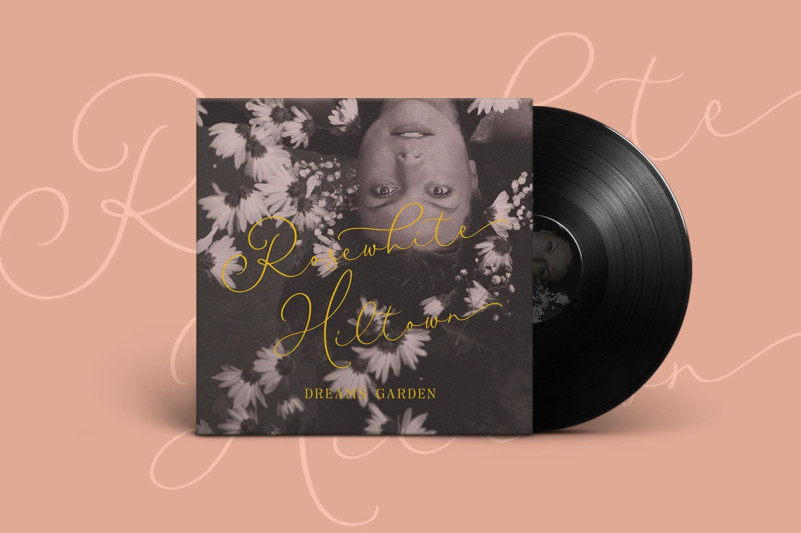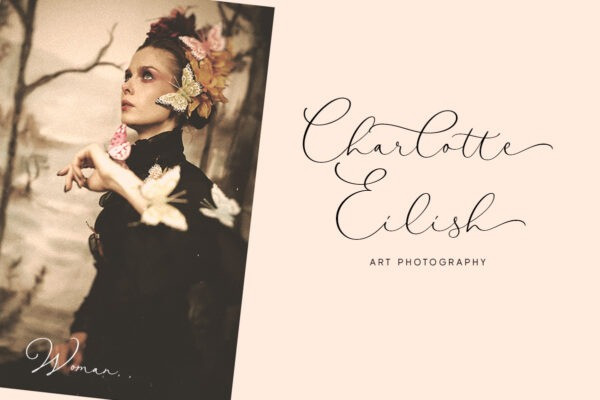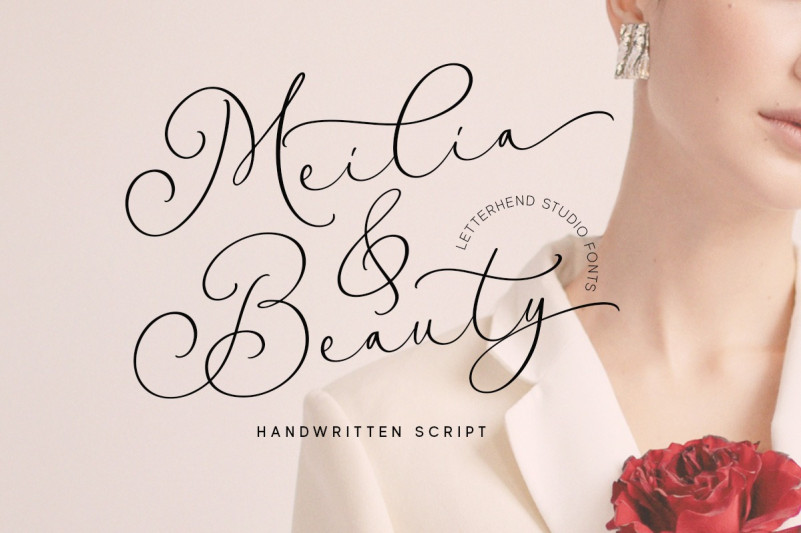
Meilia Beauty Font
Meilia & Beauty Script Font is a gorgeous handwritten script font that embodies the essence of femininity and beauty. Its flowing curves and classy details create a look that is both charm and classy. Perfect for fashion, beauty, and lifestyle brands, this font will add a touch of sophistication and glamour to the other various formal forms such as invitations, labels, logos, magazines, books, greeting / wedding cards, packaging, fashion, make up, stationery, novels, labels or any type of advertising purpose.